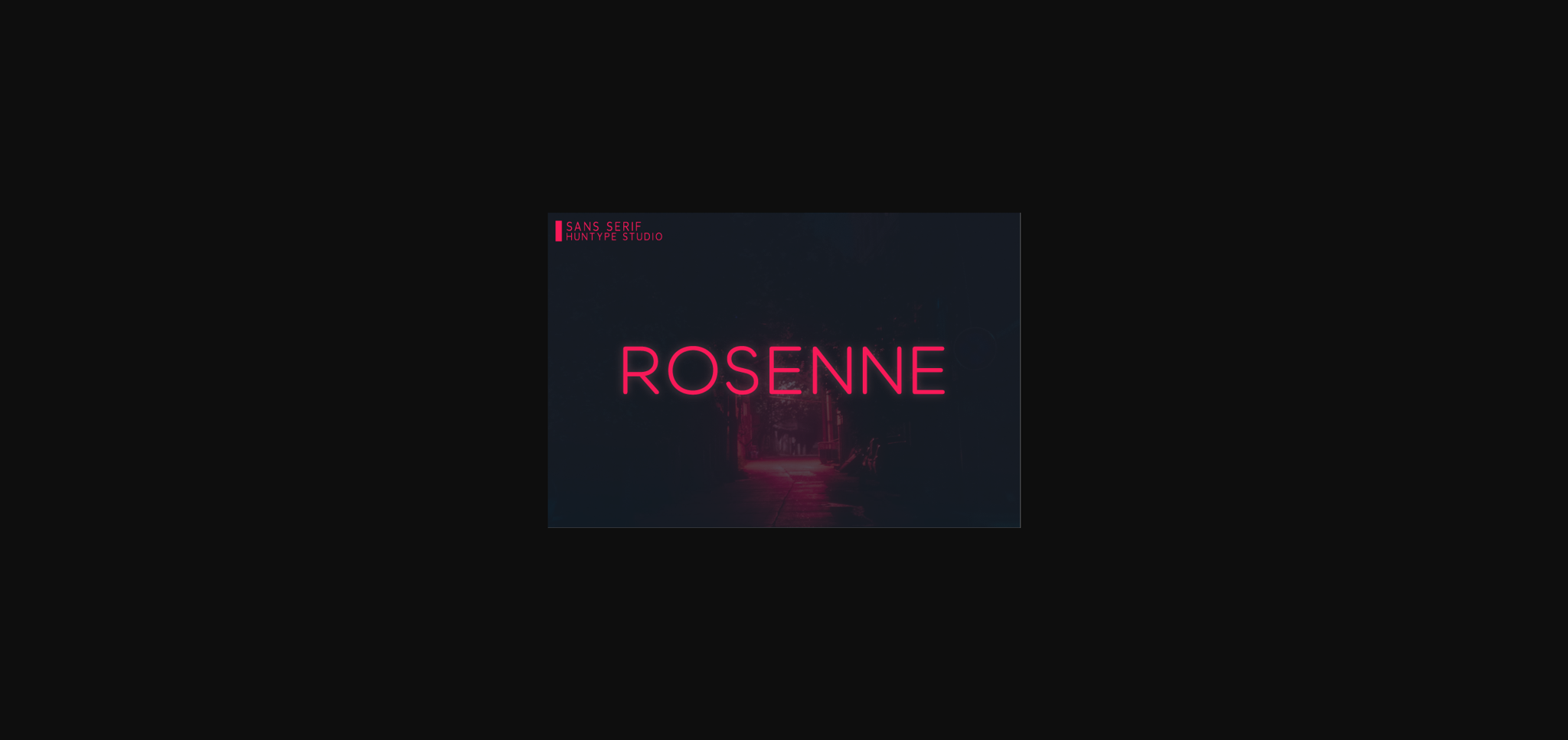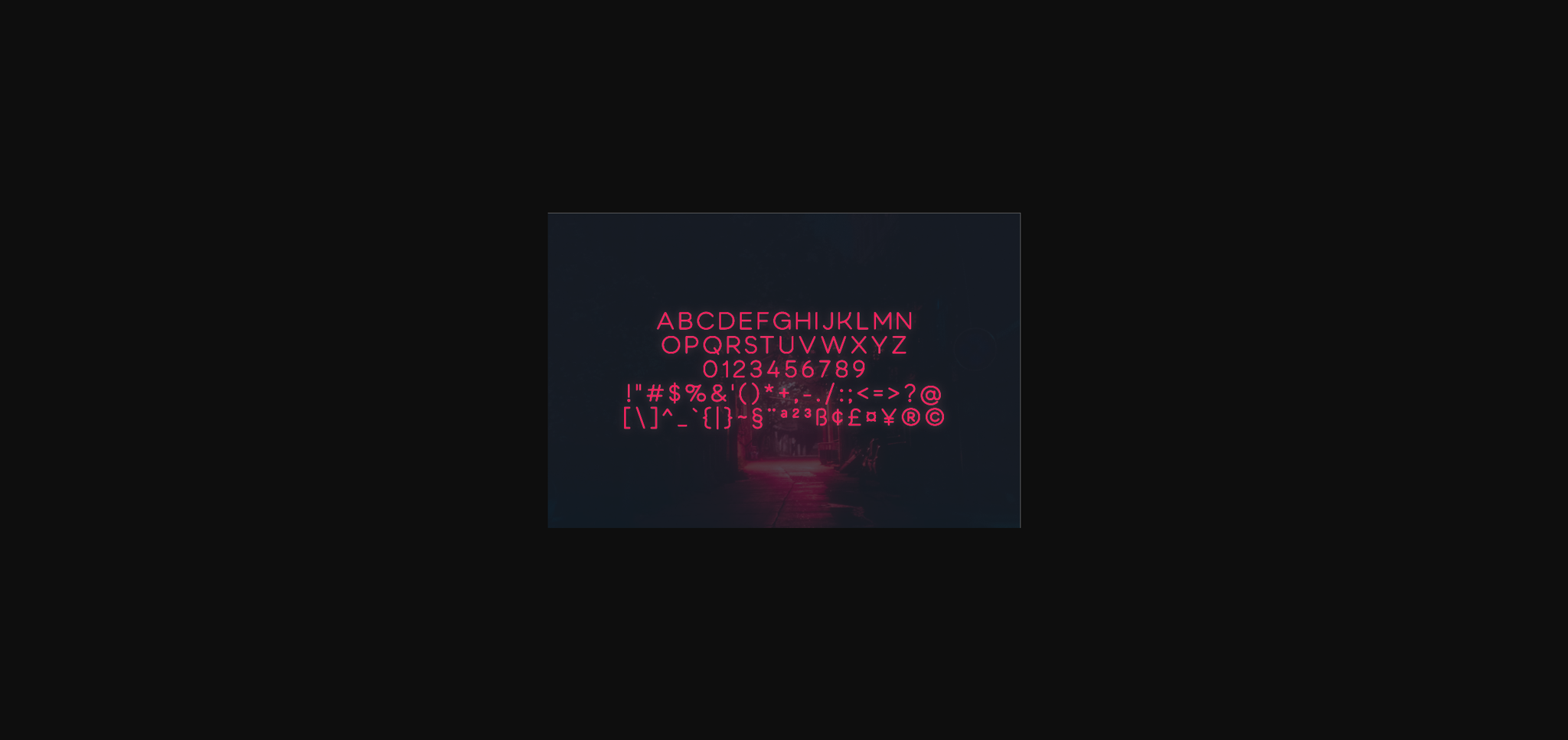
Rosenne is a clean and modern font. This sans serif font is perfectly adept for use as large scale headlines, mastheads and titles, but robust enough to perfectly communicate small runs of data, footnotes and more.